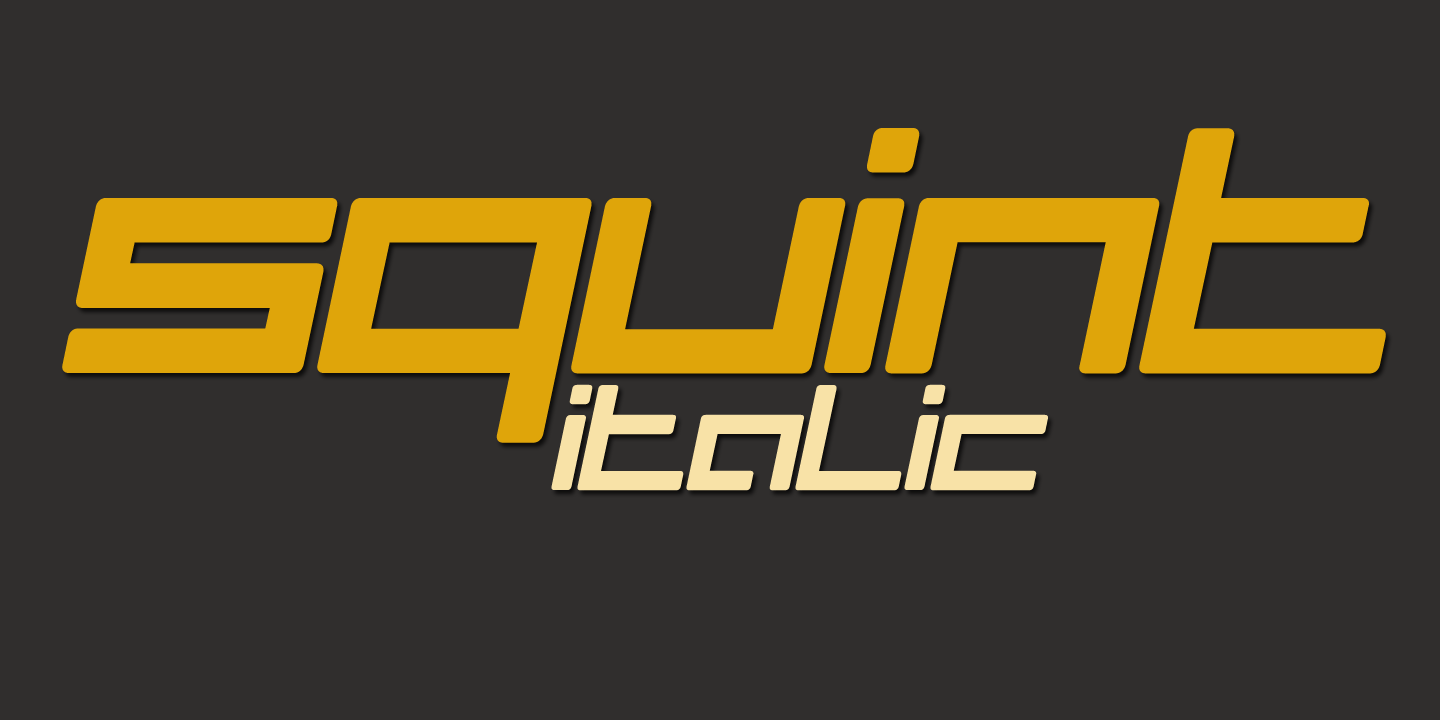
Squint
Squint is a unique typeface, created with just 2 basic forms: a rectangle and a line. Squint is ideal for use in (futuristic) posters, designs and ads. It comes with old fashioned extensive language support.